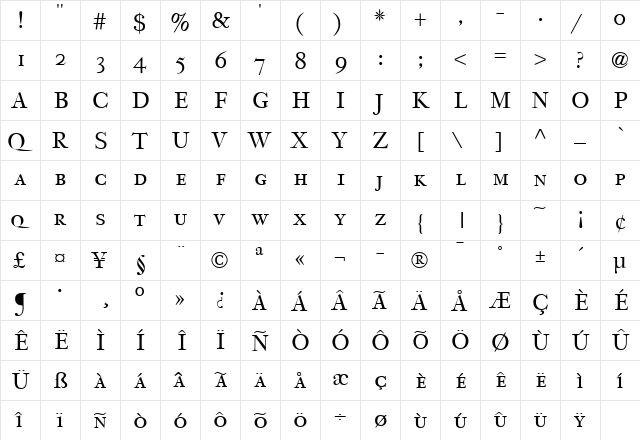
AIOberon Regular
Design Context for AIOberon Typeface
AIOberon takes a measured approach to typography — its balanced proportions and neutral character make it a reliable workhorse for both digital and print work.
Pro Tip: Pair AIOberon with a font of contrasting weight or personality to build a more expressive typographic hierarchy.